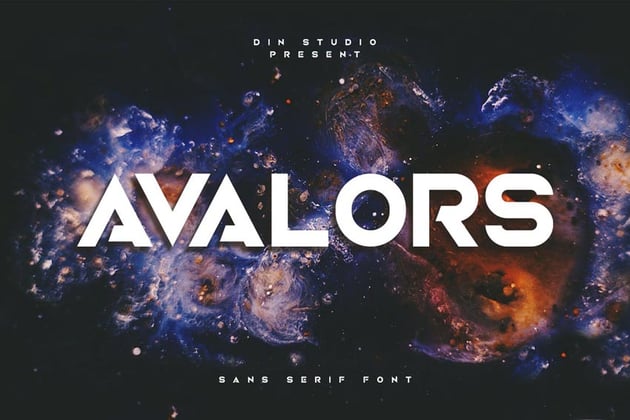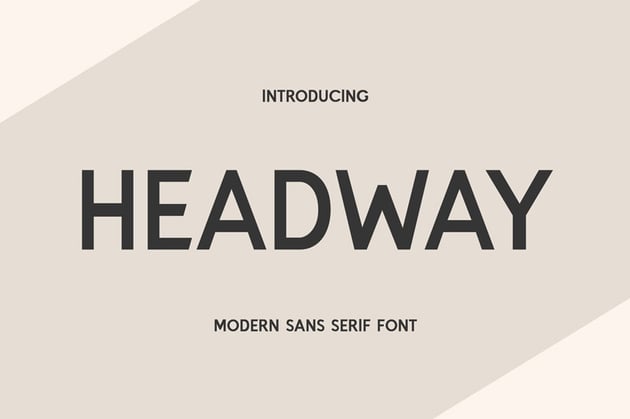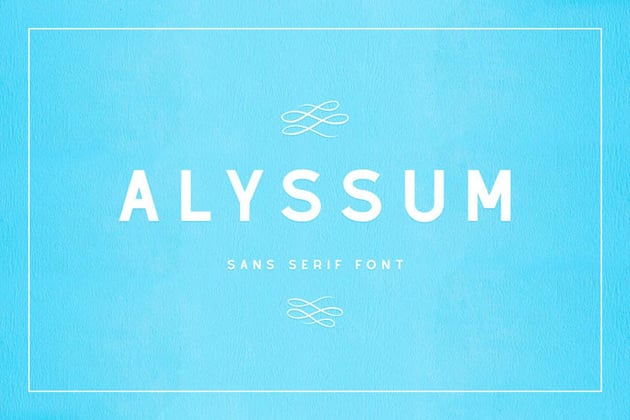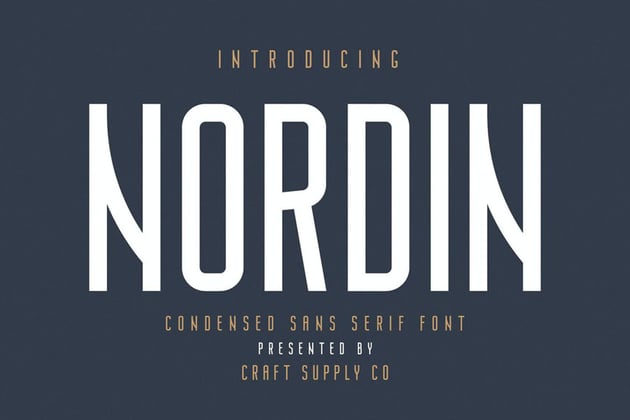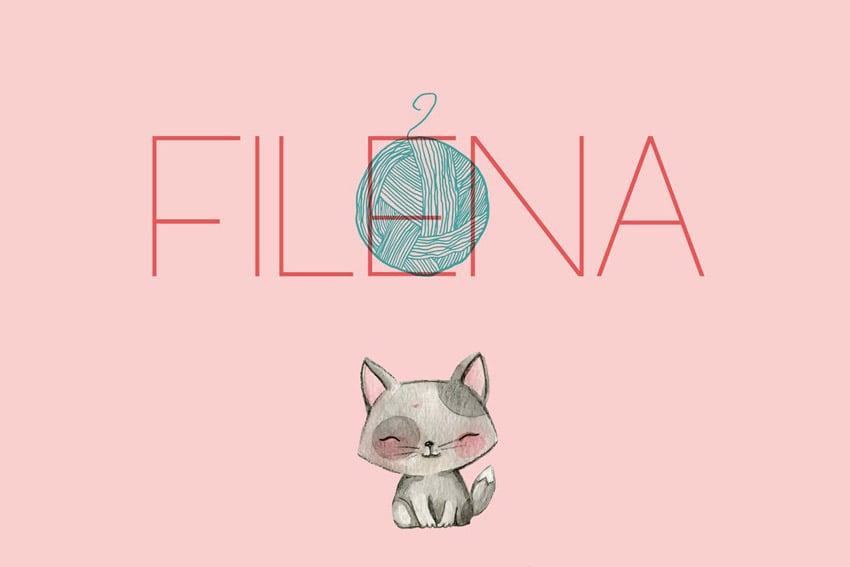
34 Best Modern Sans Serif Fonts (Ready to Download Now)
Looking for modern sans serif fonts for your next design project? Whether you fancy thin modern fonts or modern bold fonts, this list is full of some of the best modern fonts to download now.
Sans serif fonts have only continued to grow in popularity over the years. Why? Perhaps a big part of it is their versatility. Many of the best modern fonts can both hold their own and act as a complement to other fonts. However, some sans serif type takes a more decorative approach and stands out as eye-catching display type. There's a lot to see and consider.
20 Best Modern and Cool Sans Serif Fonts From Envato Elements
1. Roku Modern Font Styles
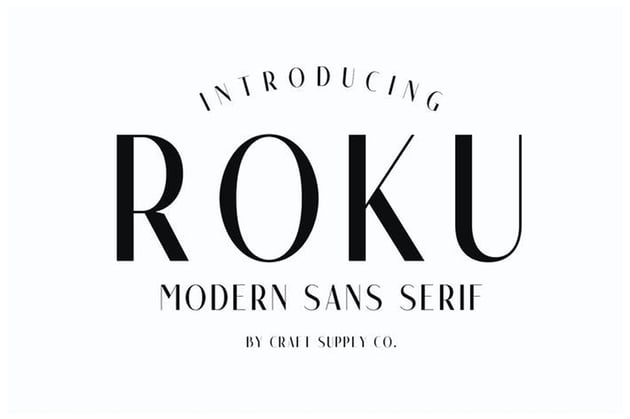
This beautiful and cool sans serif font is an elegant, versatile addition to anyone's collection. Use it for larger, eye-catching parts of your composition. However, it works well as a supplement too.
2. Roger Clean Modern Fonts Serif
Check out this amazing and cool sans serif typeface. It has a host of stylish ligatures that you can easily use to create headlines and logos that really command attention. If you're looking for modern elegant fonts, this one is a great choice.
3. Brendon Clean Modern Fonts Serif
This font's blocky look is both stylish and timeless. It also includes three different weights: regular, light, and smooth. They're perfect for mixing and matching as you work to establish hierarchy in your layout designs.
4. George Round Modern Minimalist Font
The best modern fonts are often the most versatile, and this stylish sans serif is a great example. Whether your design has eccentric flair or takes a quieter approach, this one could serve you well.
5. Lorenza Modern Font Styles
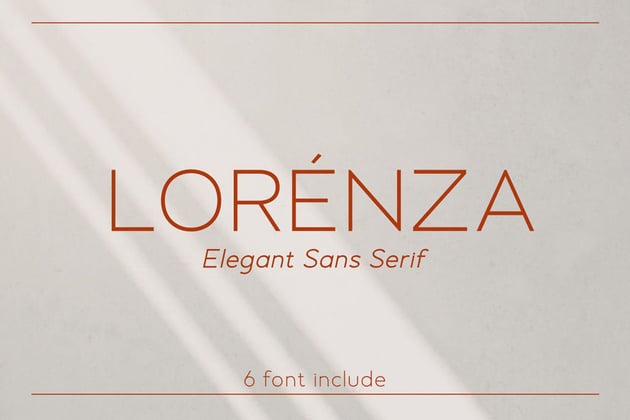
Thin modern fonts can help create a classy, trendy aesthetic. This particular font family is a strong collection of clean modern fonts. They would be a strong addition to any font collection.
6. Ancor Modern Bold Fonts
Modern bold fonts can add such a fun flair to your work. Check out this stylish, decorative font. It's definitely the type of sans serif that really commands attention. Give this one a try today.
7. Salah Sans Serif Clean Modern Fonts Family
Looking for modern font styles that really capture that thin look? Check out this cool sans serif font family. Go from regular to ultra-thin styles. This one is a perfect fit for high-end fashion and elegant design projects.
8. Gutter Modern Block Font
Isn't this chunky sans serif font charming? It has a slightly organic quality to it that gives it a touch of homemade while still keeping the bold of a block font. This is a great choice if you're looking for modern number fonts too.
9. Cronus Cool Modern Fonts
Here's a fun font with a lot of potential. It comes with standard and rounded variants. It's a fun pair with plenty of options to mix, match, and remix in your next design project.
10. Sprout Thin Modern Fonts Sans Serif